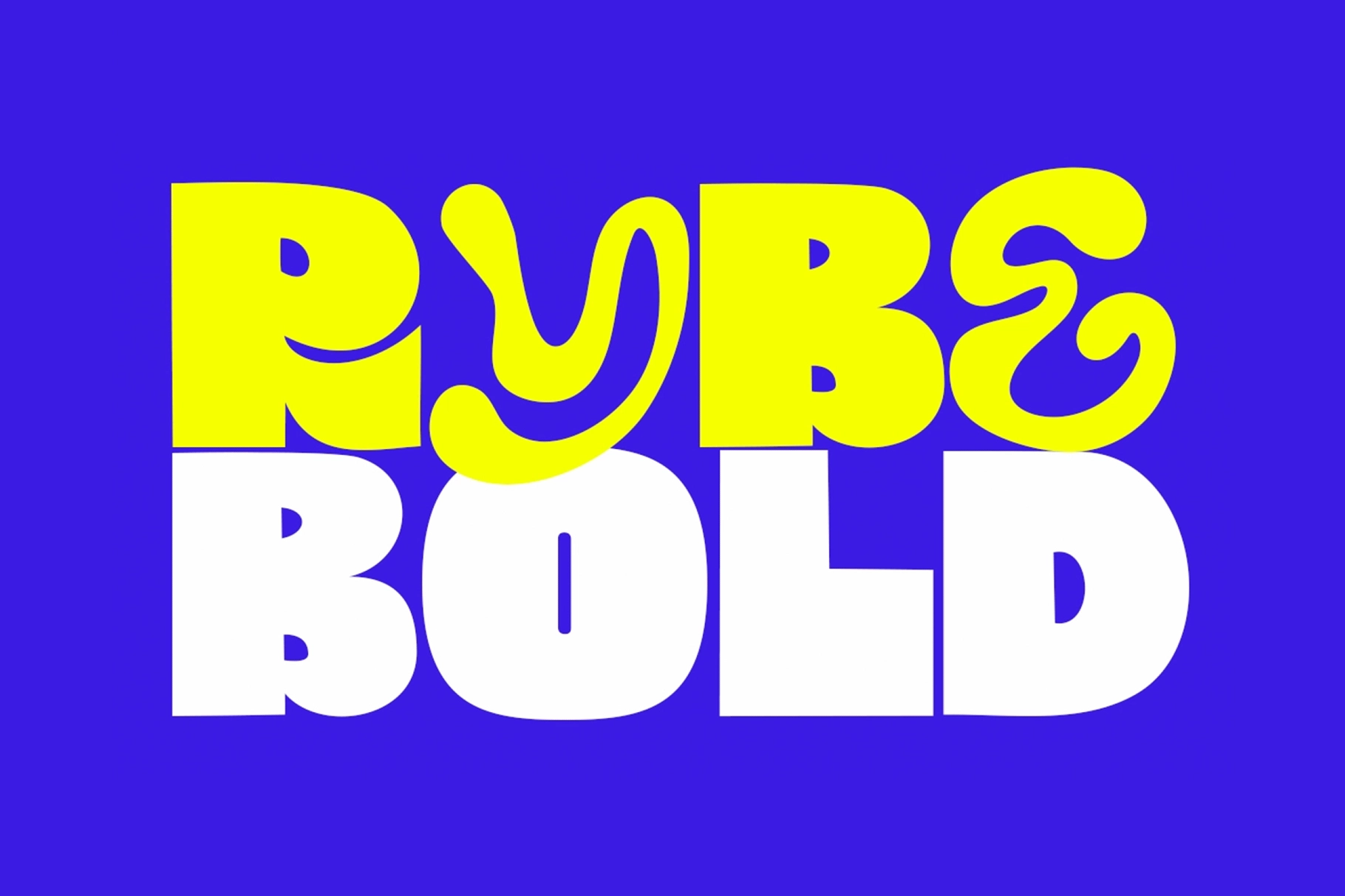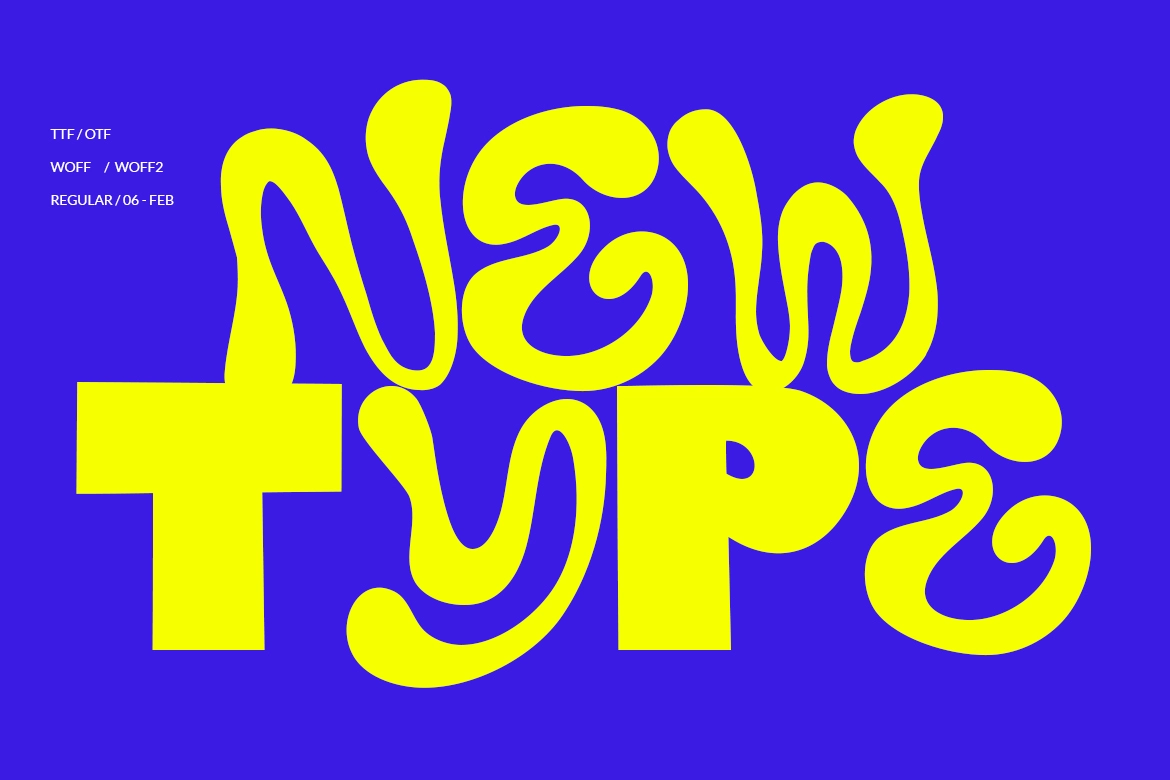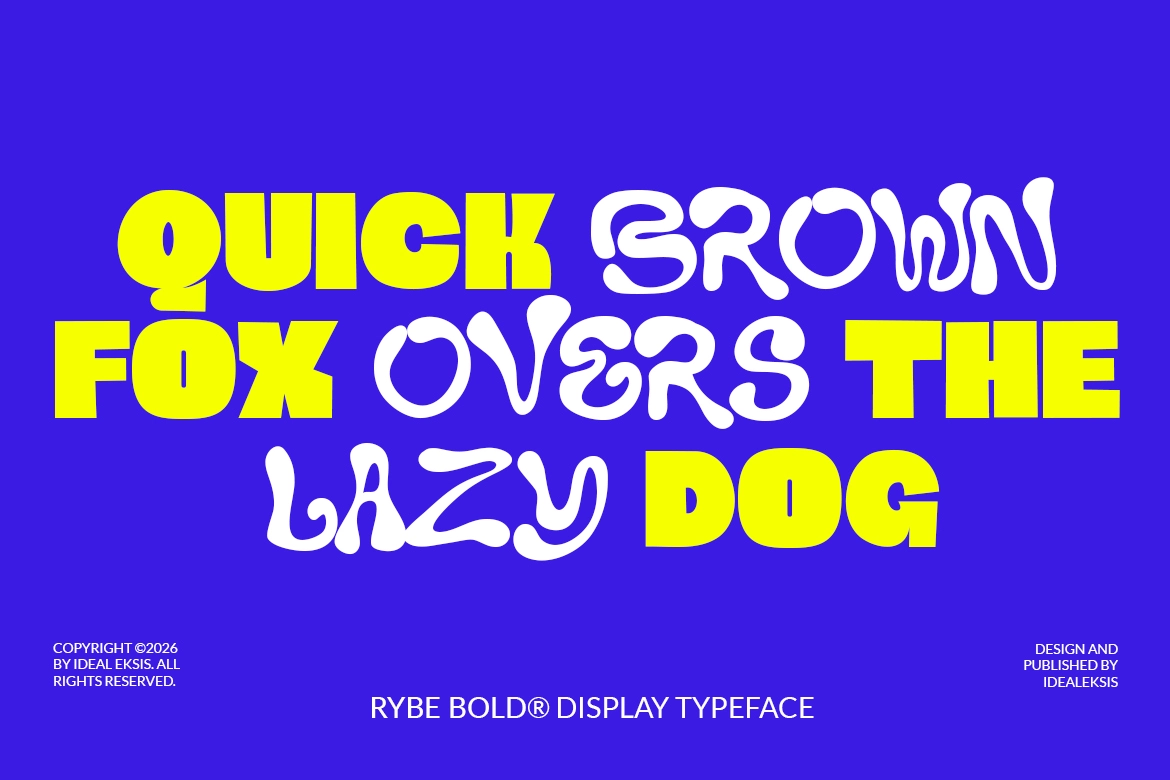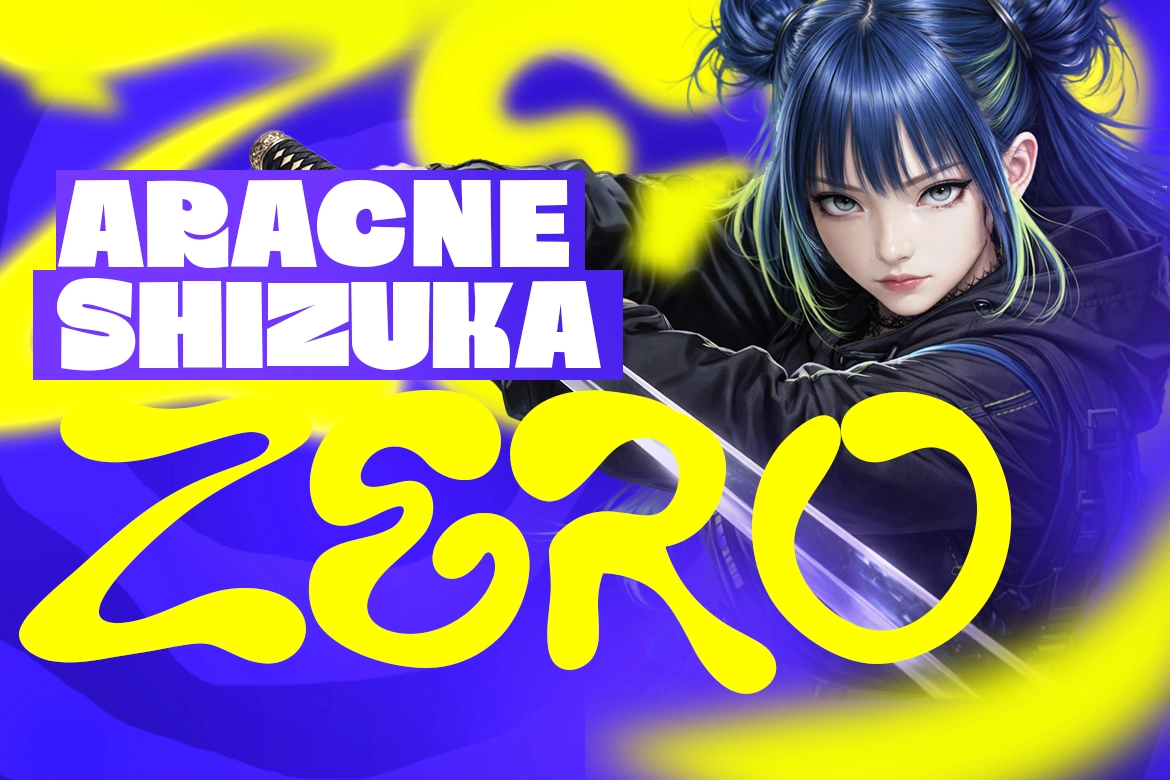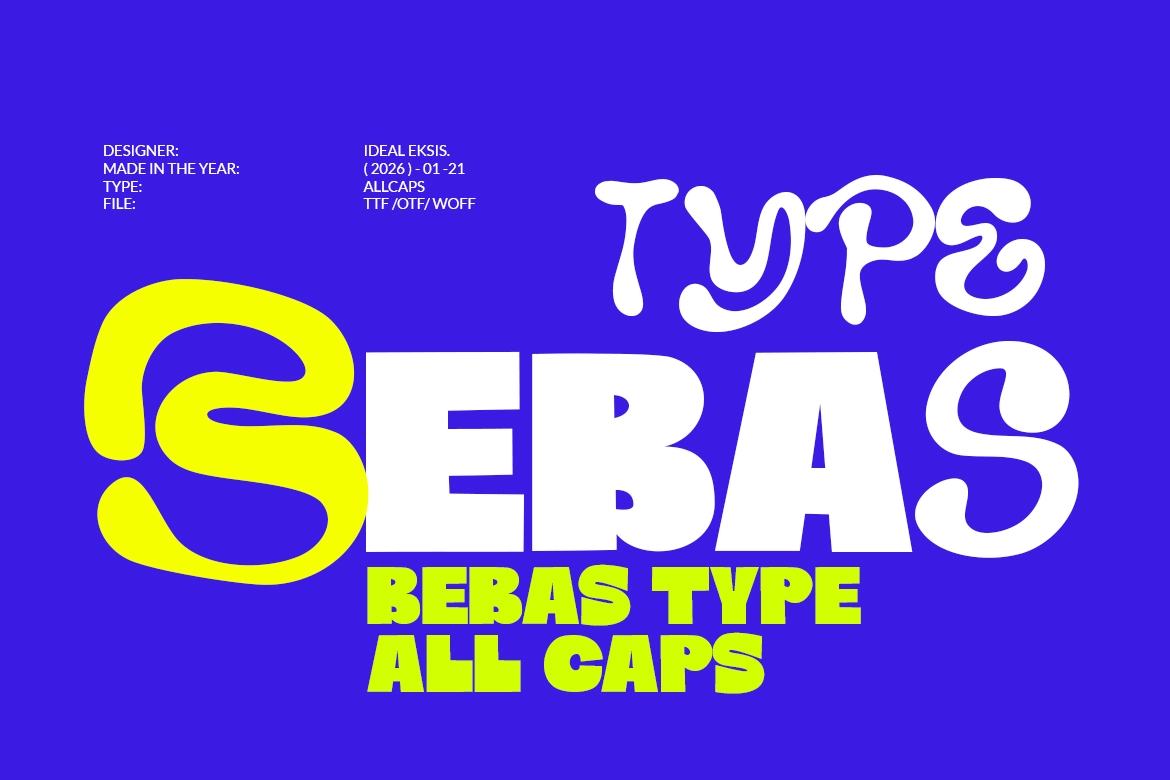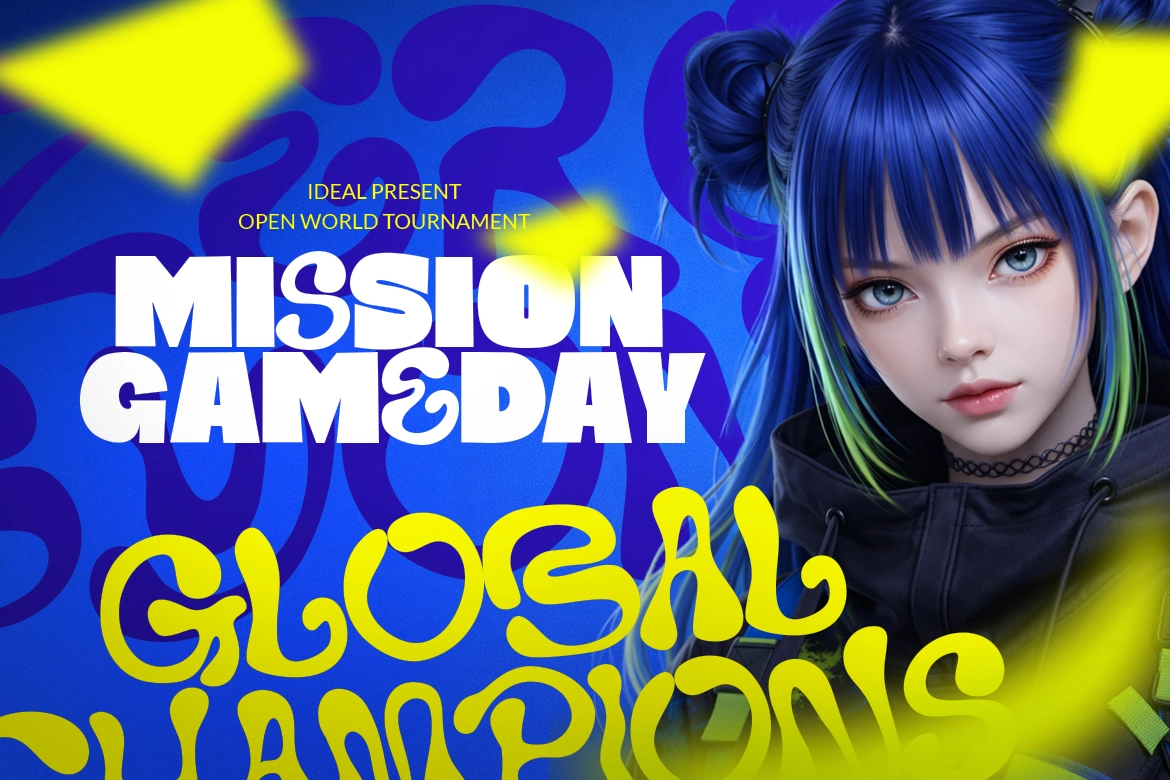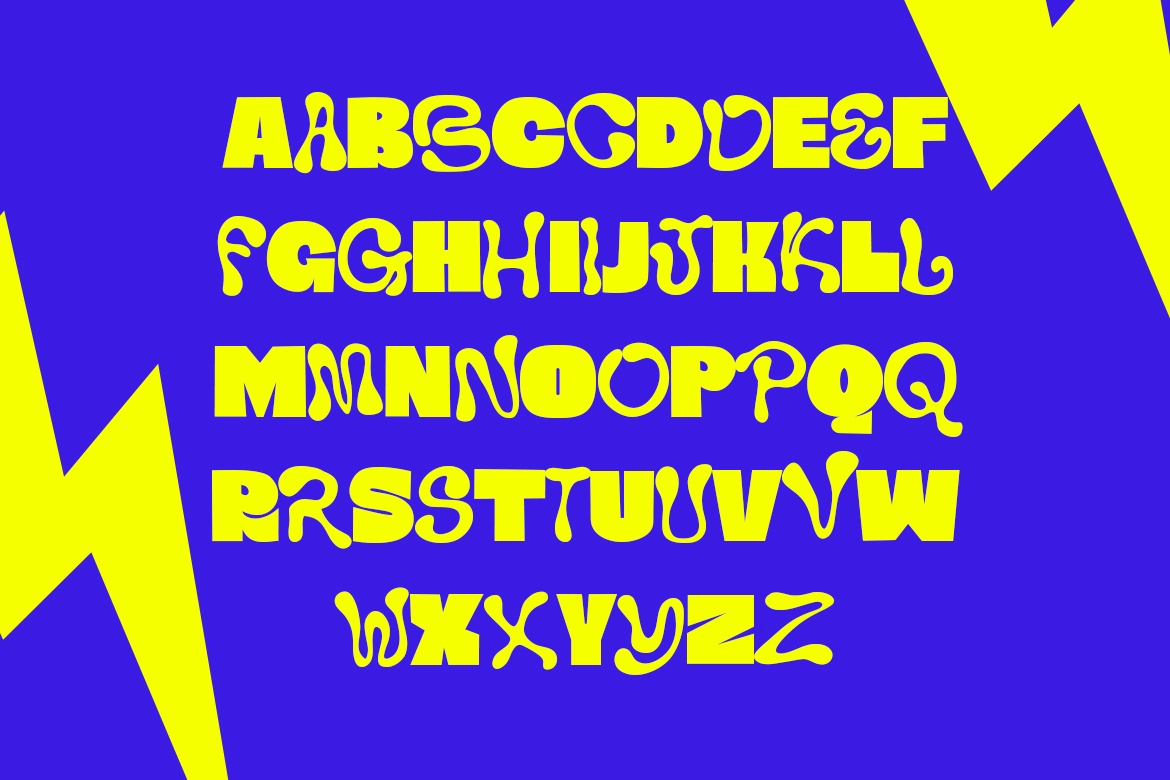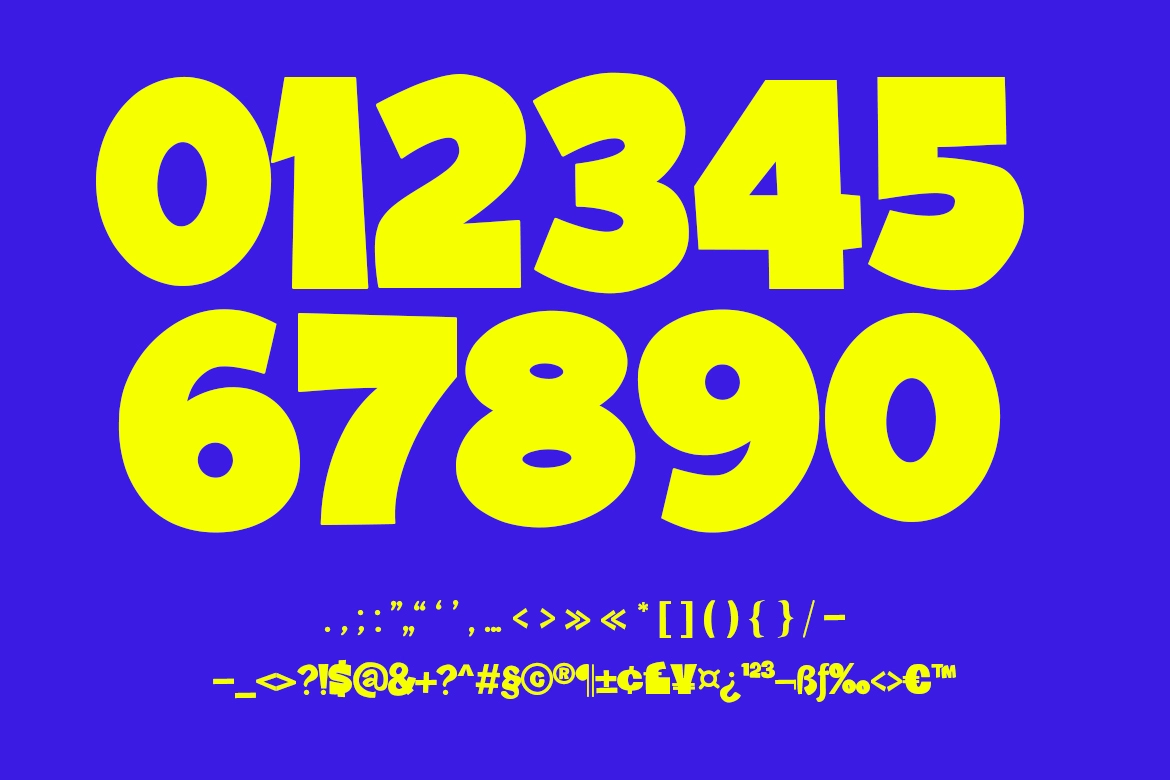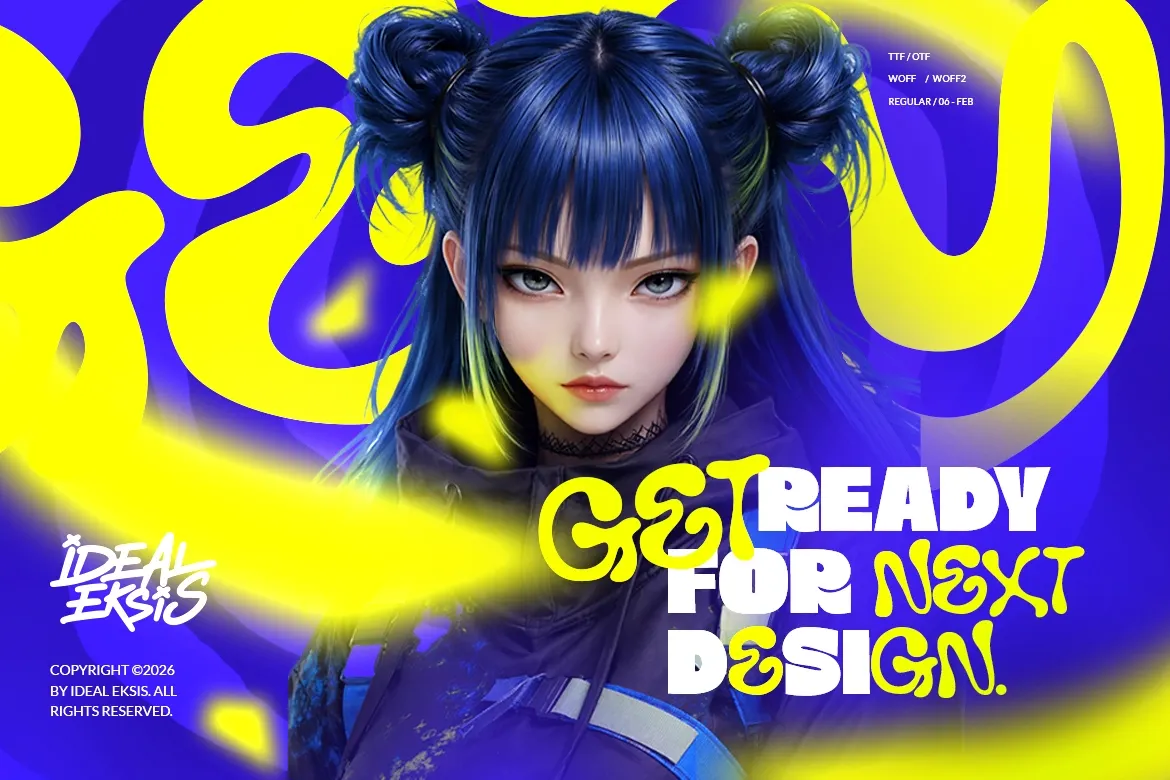
Rybe Bold - Psychedelic Display Font
Rybe Bold – Psychedelic Display Font is an ultra-heavy display typeface designed to make an instant visual impact. Featuring chunky, oversized letterforms combined with expressive liquid distortions, this font blends solid block structure with playful, melting details for a bold and experimental look.
The uppercase characters showcase warped, fluid strokes and rounded terminals that create a psychedelic, dynamic texture, while the strong geometric base keeps the composition powerful and attention-grabbing. Perfect for posters, streetwear branding, album covers, packaging, headlines, and statement graphics, Rybe Bold is built for designers who want typography that feels loud, energetic, and unapologetically bold.
• All Caps (Uppercase) character set
• Numerals included
• Punctuation included
• Bold, high-impact display style